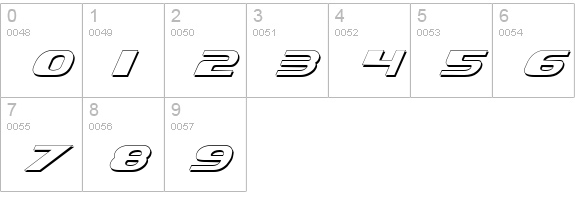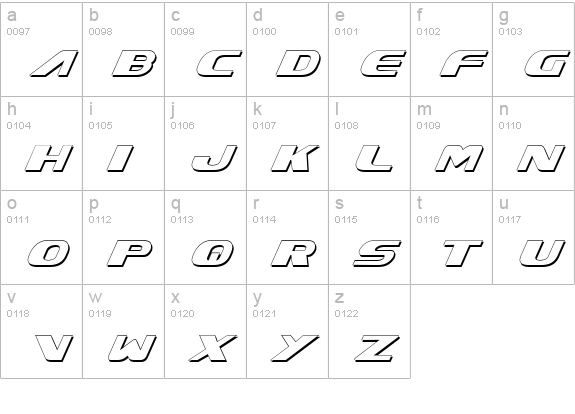
Xcelsion Shadow Italic Font Details
Xcelsion Shadow Italic is a distinctive, italic variant in the Xcelsion typeface family \xE2\x80\x94 well suited to design and typography projects.
Xcelsion Shadow Italic is a modern and stylish font that exudes elegance and sophistication. Its sleek and slanted design gives a sense of movement and dynamism, making it perfect for projects that require a touch of flair. The font features unique shadow effects that add depth and dimension to your text, making it stand out in any design. What's even better is that Xcelsion Shadow Italic is available for free download at FontsMarket.com. This means you can elevate your designs with this striking font without any cost. Whether you're working on branding materials, invitations, posters, or any other creative project, Xcelsion Shadow Italic is sure to make a bold statement. Download it today and unleash your creativity with this stunning typeface.